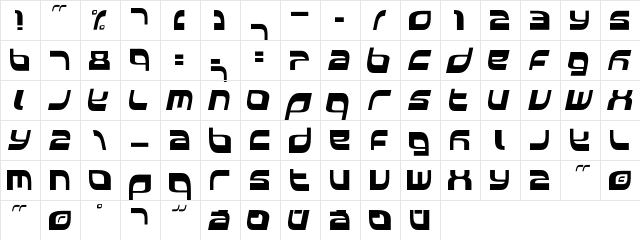
BDElside capsitalic
Design Context for BDElside Typeface
BDElside is a composed and adaptable typeface that performs quietly and consistently across a wide range of design contexts. The dynamic lean of this cut emphasises speed and emphasis in any layout.
Pro Tip: Use BDElside for emphasis, pull quotes, and subheadings where its slanted energy can add rhythm to the layout.